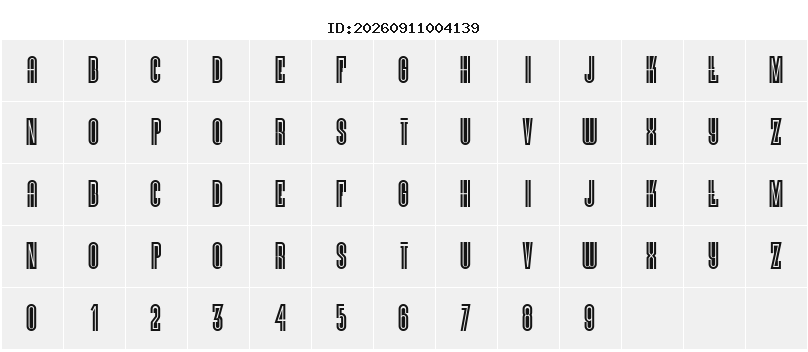
• Font Name: VielleVarsovieNF
• Designer: Nick Curtis
• Manufacturer: Nick's Fonts
About VielleVarsovieNF.ttf
VielleVarsovieNF.ttf is a modern, elegant sans-serif font designed for ultimate readability and visual harmony. Perfect for branding, headlines, web design, and print materials.